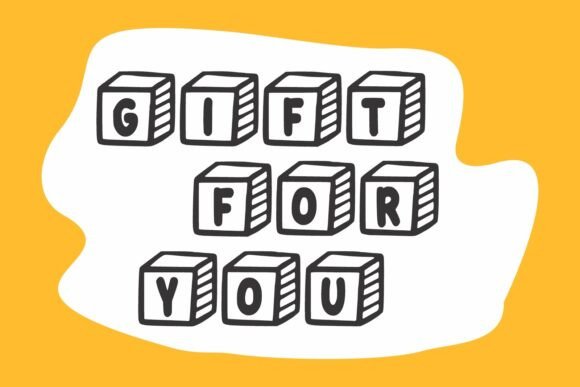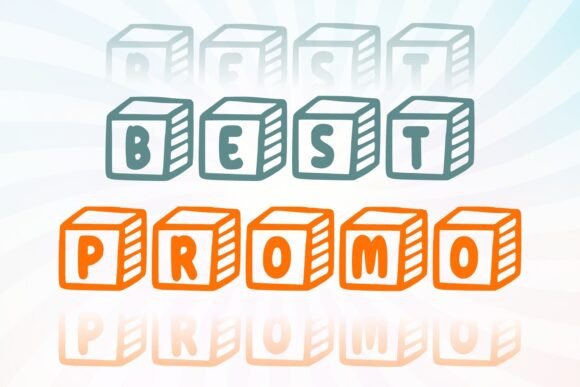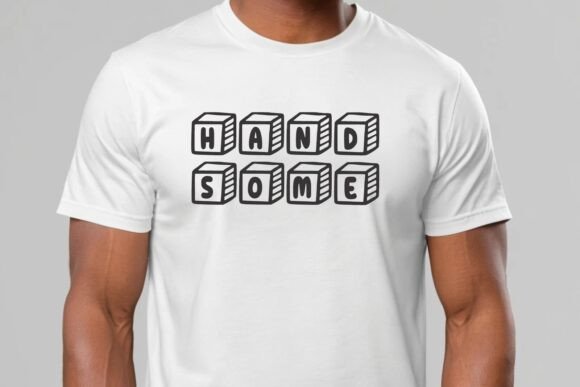
Introduction to Shape Box Font
Shape Box is a spectacular and attractive display font.
Incredibly versatile, this font fits a wide pool of designs, elevating them to the highest levels Add this font to your favorite creative ideas and notice how it makes them come alive.
Key Features of Shape Box Font
Why Choose Shape Box Font?
Shape Box Font offers exceptional quality and versatility, making it a valuable addition to your design toolkit. Whether you’re creating for personal projects or commercial use, Shape Box Font delivers professional results.